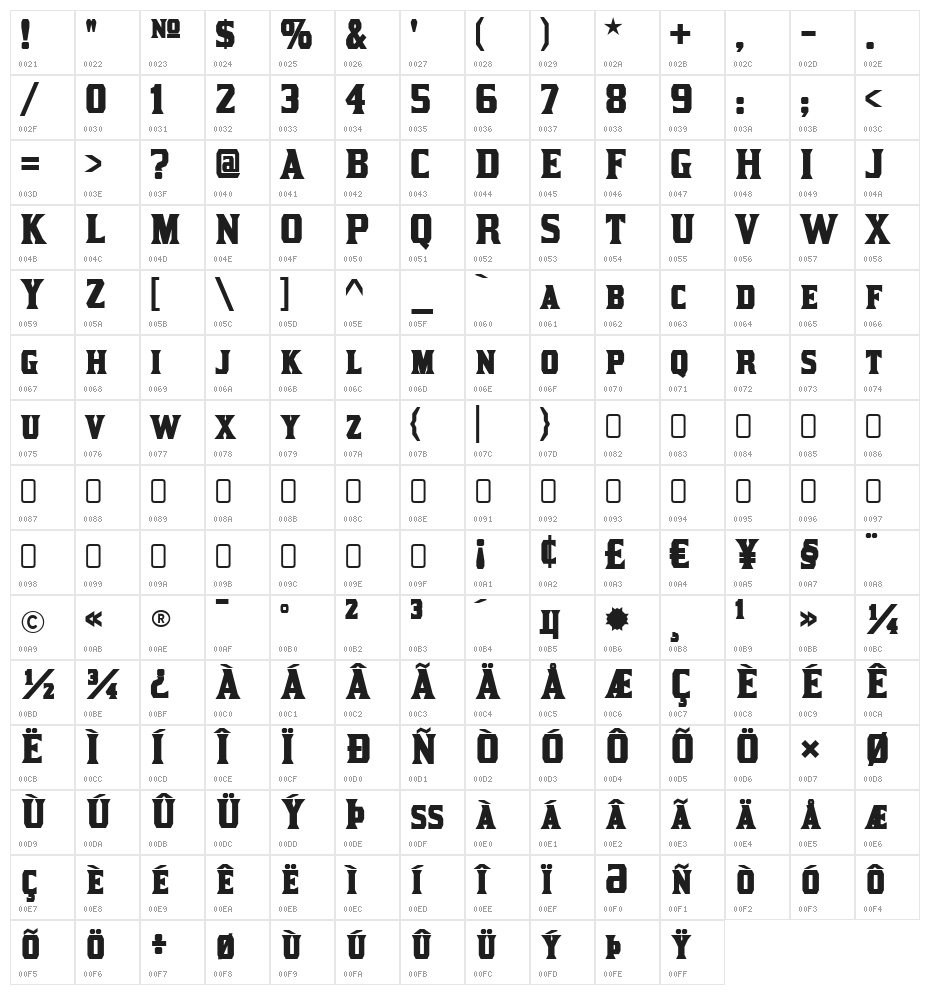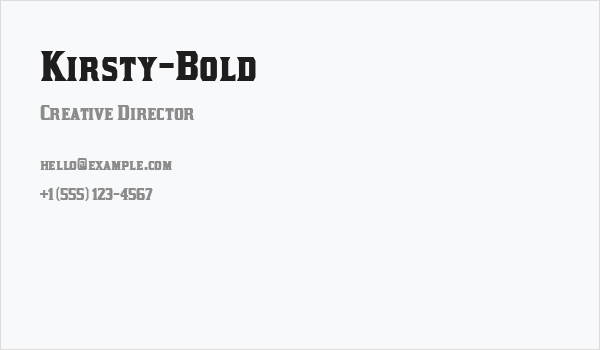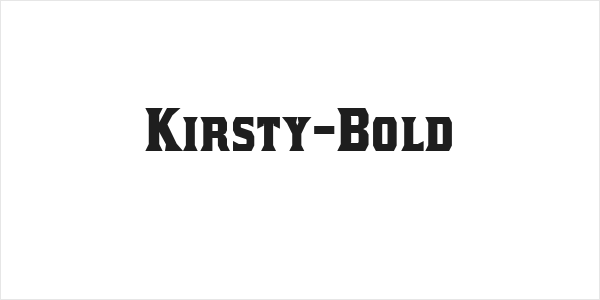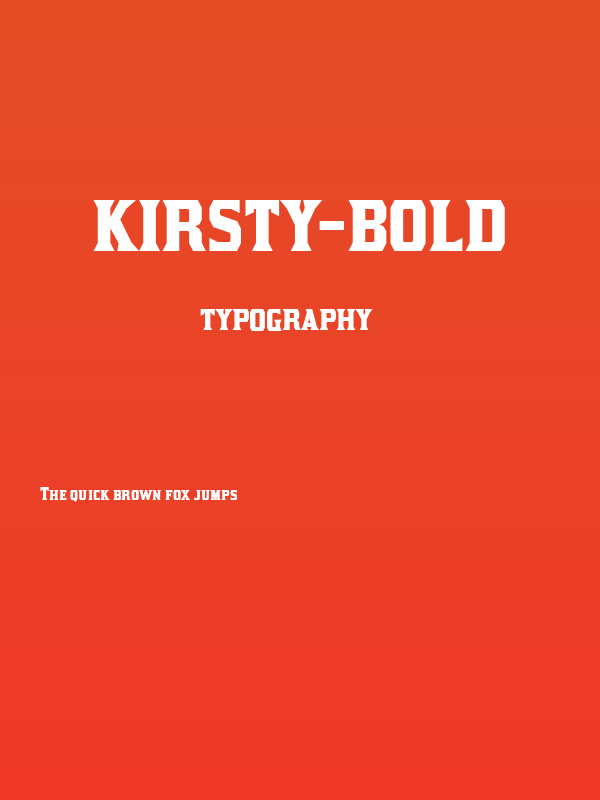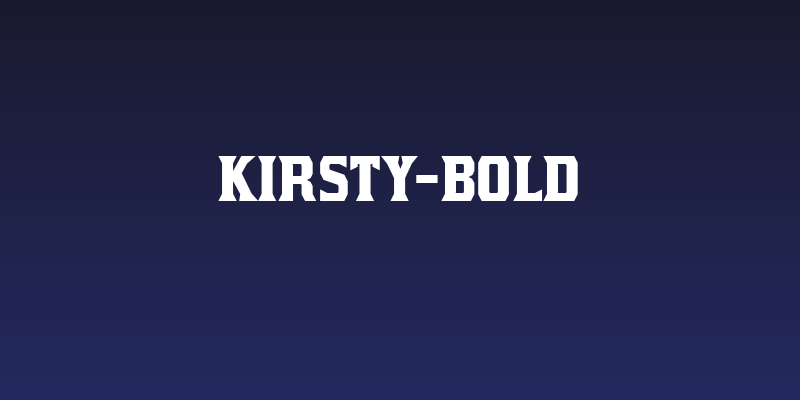
Kirsty-Bold Font
Kirsty-Bold Description
This font features a bold and striking appearance, characterized by its angular and geometric letterforms. The uppercase letters exhibit a strong presence with sharp edges and a uniform thickness, creating a sense of stability and power. The lowercase letters maintain the same boldness, ensuring consistency across the typeface. Numbers are equally robust, making them ideal for impactful displays. Special characters are designed with the same attention to detail, offering versatility for various design needs. The overall style is reminiscent of vintage or retro aesthetics, making it suitable for projects that require a bold statement.
Proposed ProjectsIdeal for posters, logos, branding, and any design that requires a strong, impactful typeface.